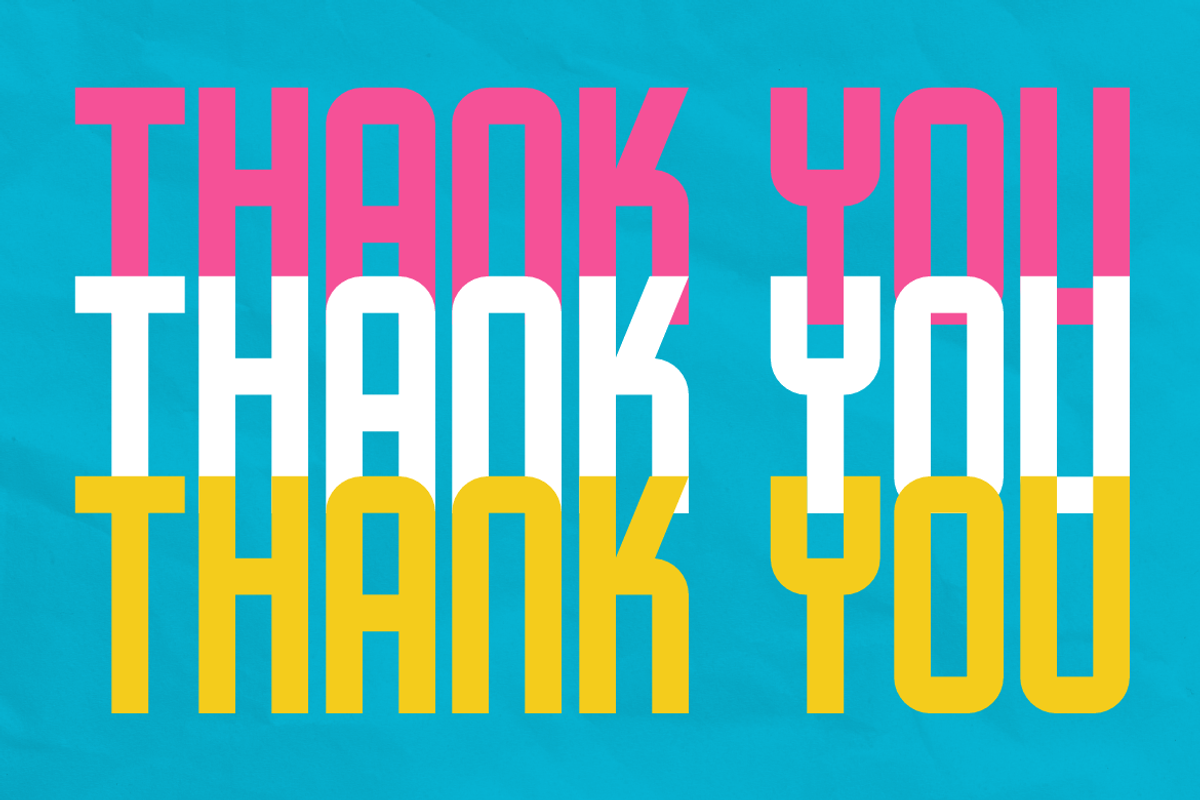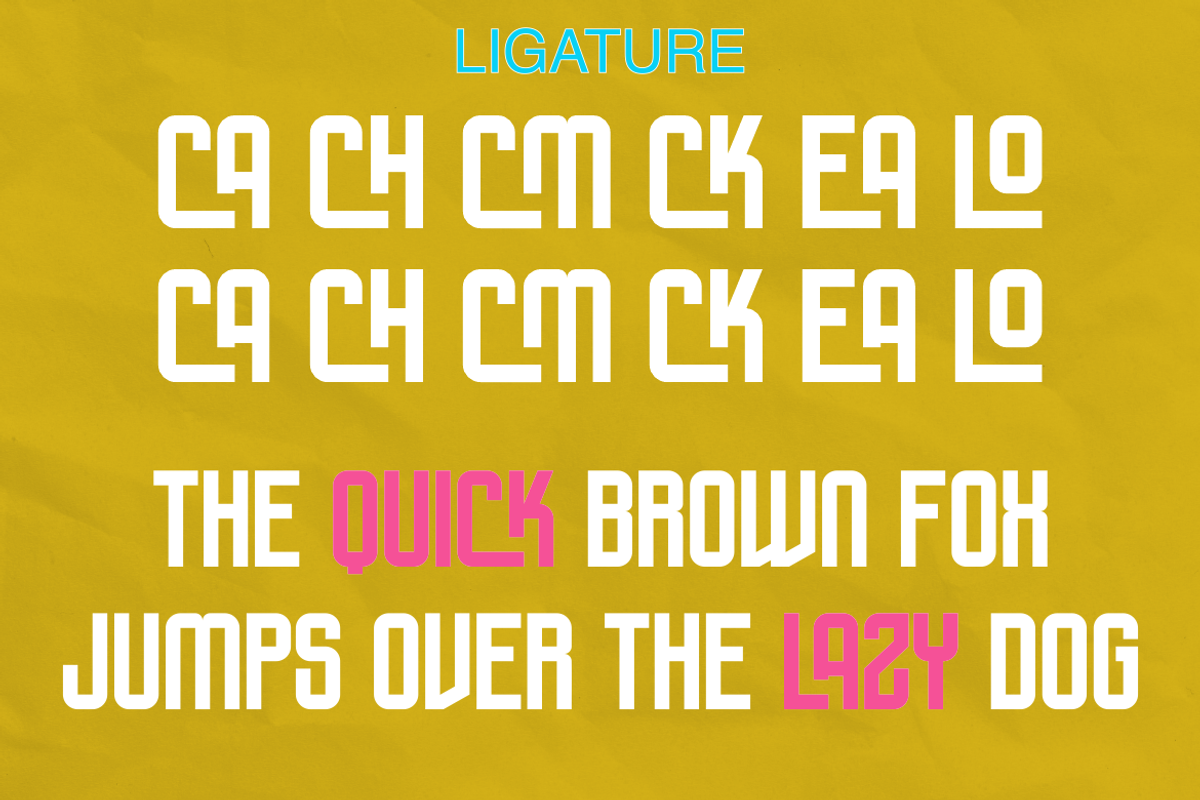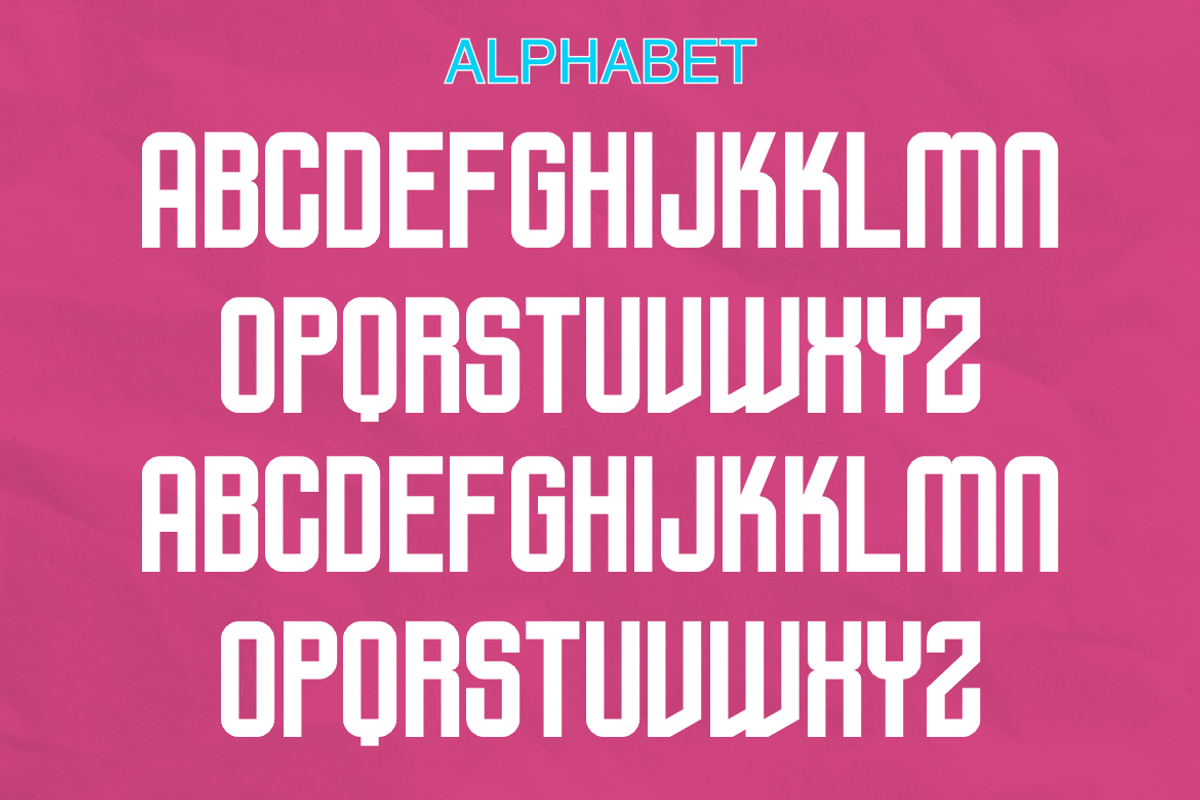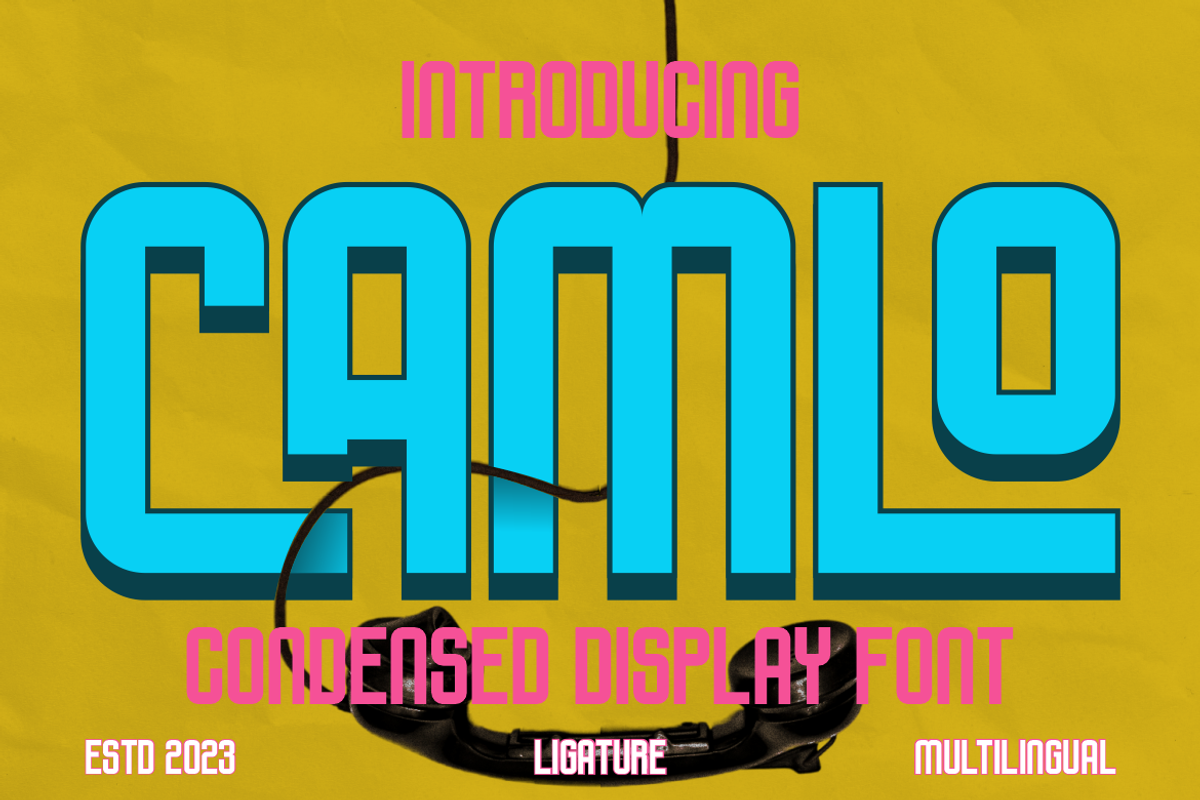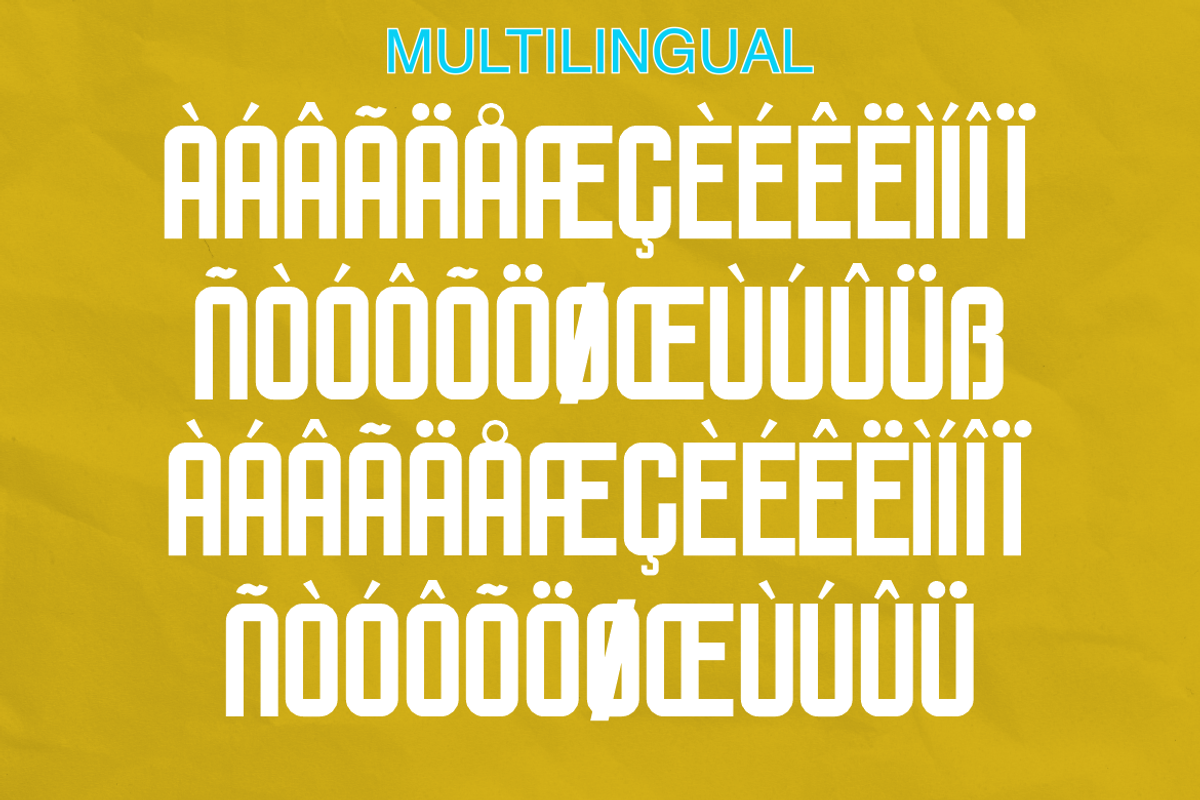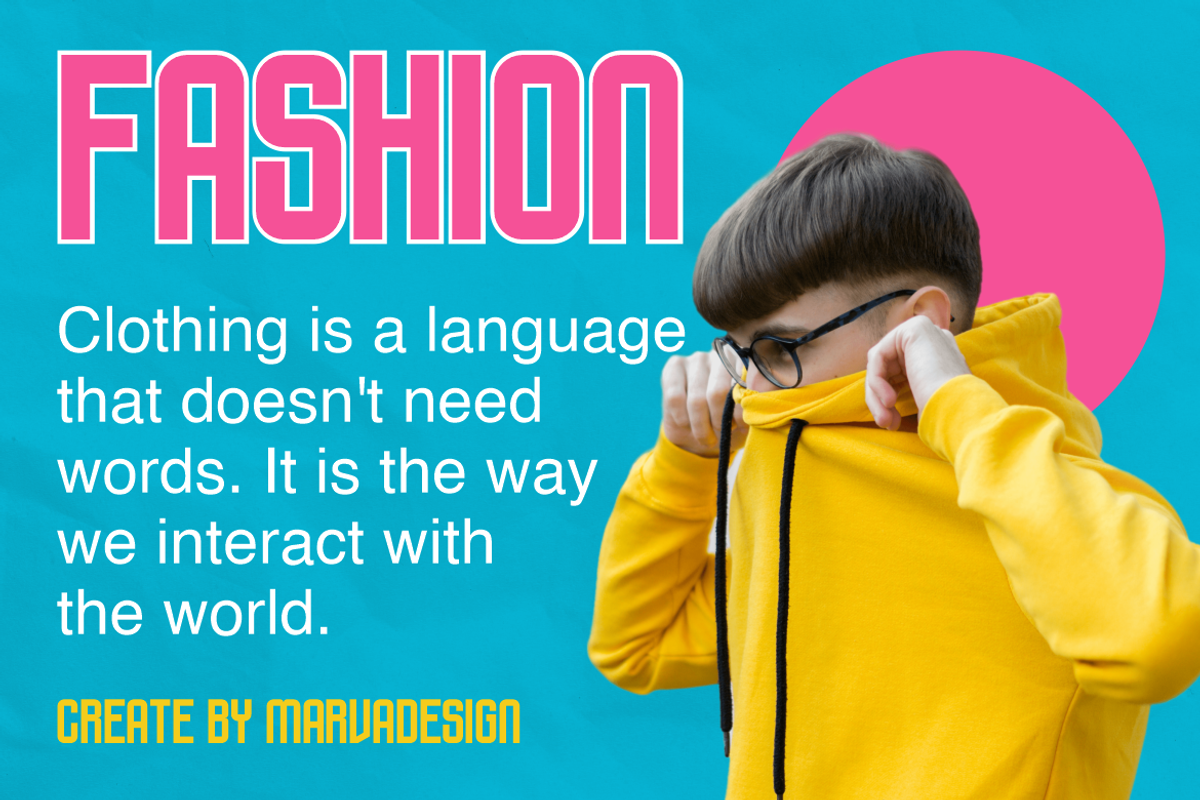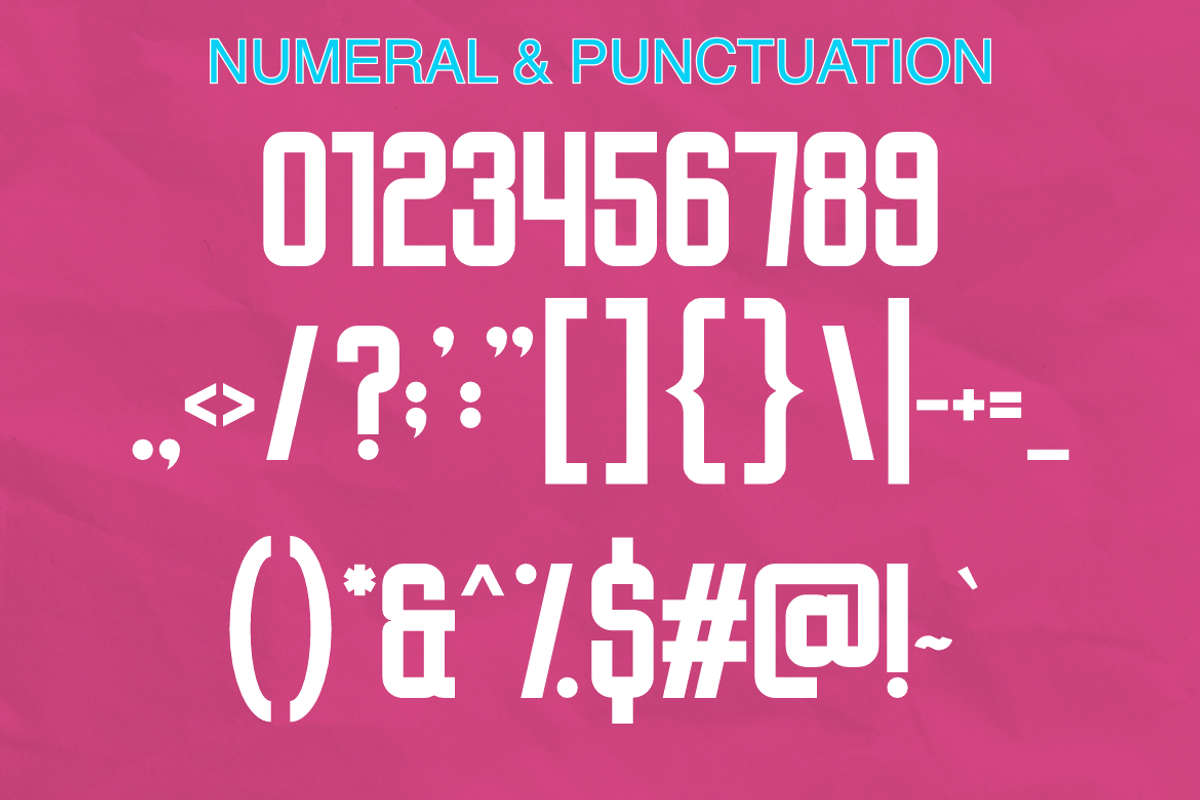
Camlo - A Modern Condensed Font
Introducing our new product Camlo Font - Modern Font is a bold and authentic display font. The font is suitable for any branding project like logo, Template Design, Product and many more. outstanding in a wide range of contexts.